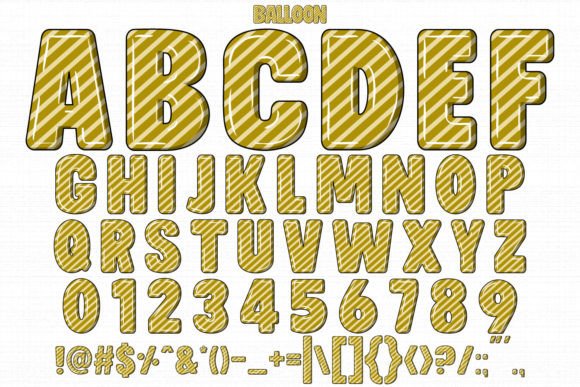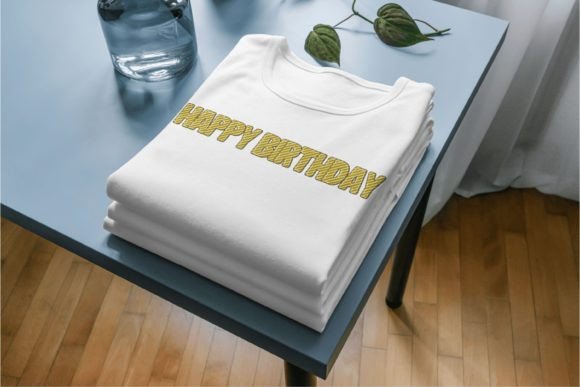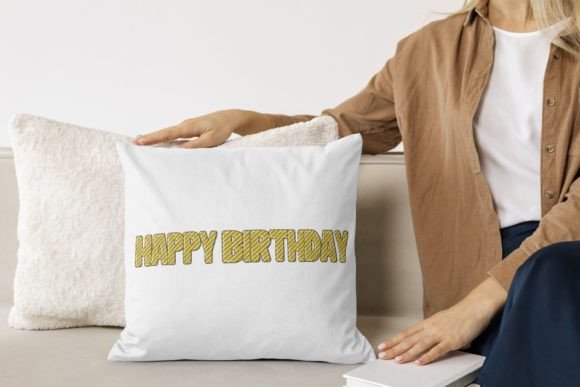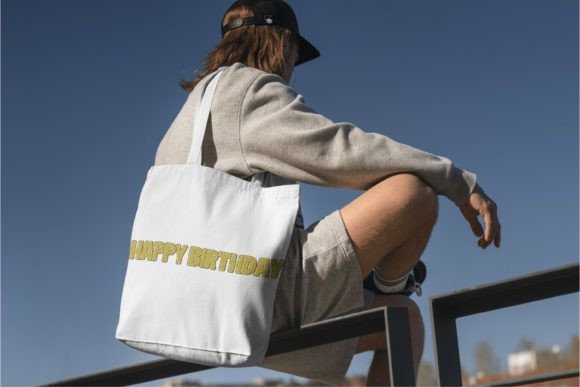
The Magic of Balloon Font: Elevate Your Designs with a Pop of Color
I still remember the time I was working on a children’s party invitation project, and I just couldn’t find the perfect font to match the playful theme. The design was almost complete, but it was missing that special something to make it pop. That’s when I stumbled upon the Balloon font, and it was love at first sight! 🎉 With its unique Balloon skin texture and color capabilities, it instantly elevated my design and made it perfect for the project.
An Honest Review of Balloon Font
What I Love About Balloon Font
- ✨ The color version of this font is perfect for nature-themed designs and children’s projects, adding a playful touch that’s hard to resist.
- 💡 The font’s unique texture gives it a distinctive look that can help your designs stand out.
While Balloon font is incredibly versatile, there are a few things to keep in mind:
A Practical Guide to Using Balloon Font
The Story Behind Balloon Font
Balloon font was inspired by the joy and simplicity of childhood. Its creator wanted to capture the essence of a child’s birthday party, with all its colorful balloons and excitement. The result is a font that’s both fun and versatile, perfect for a wide range of design projects.